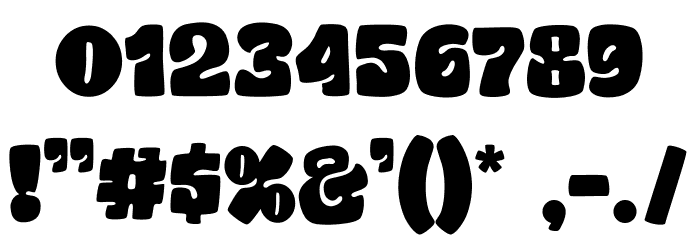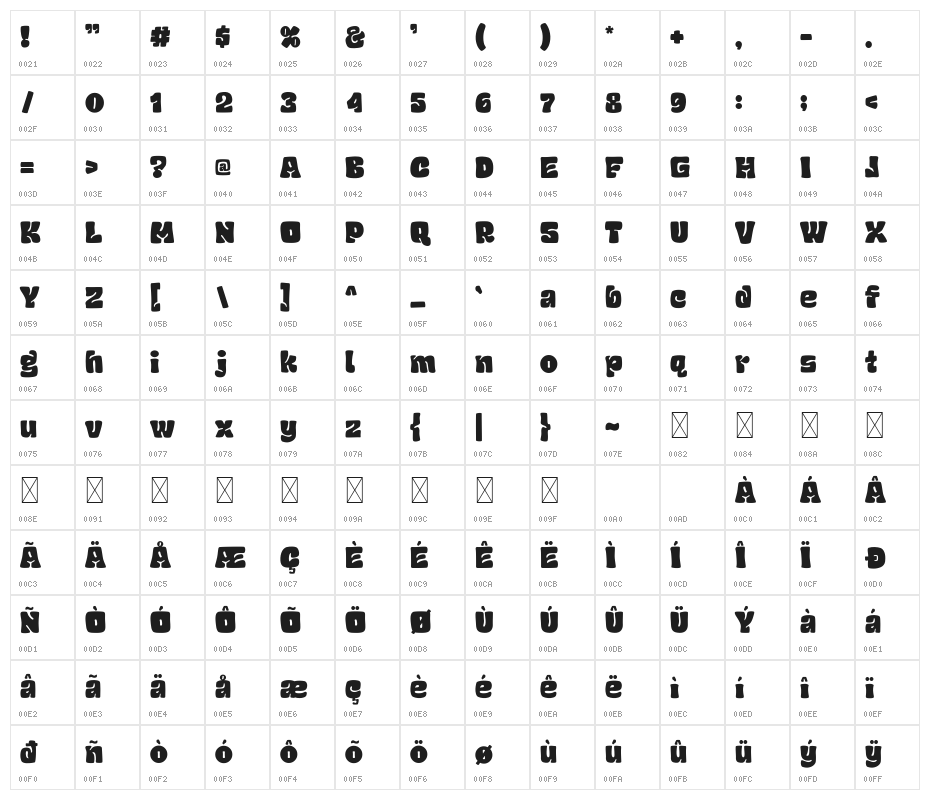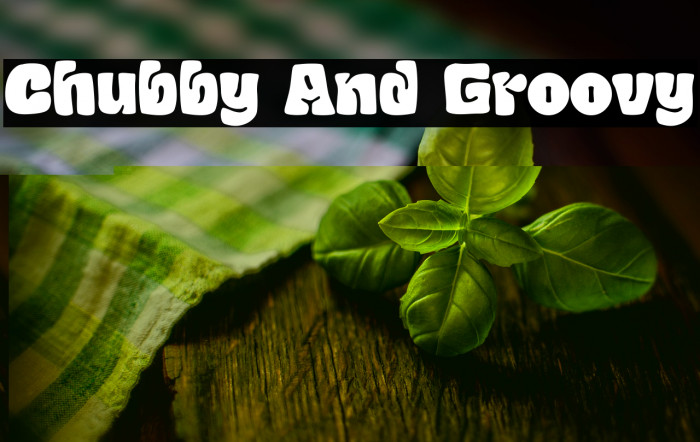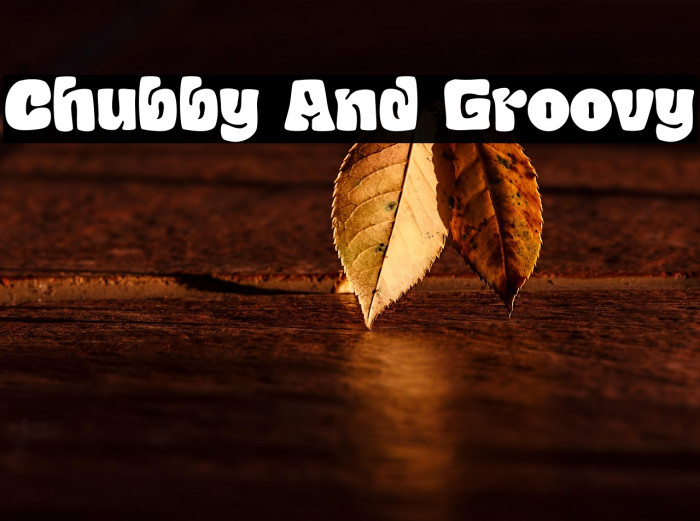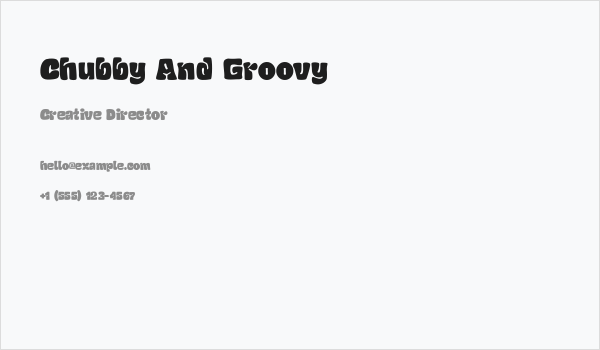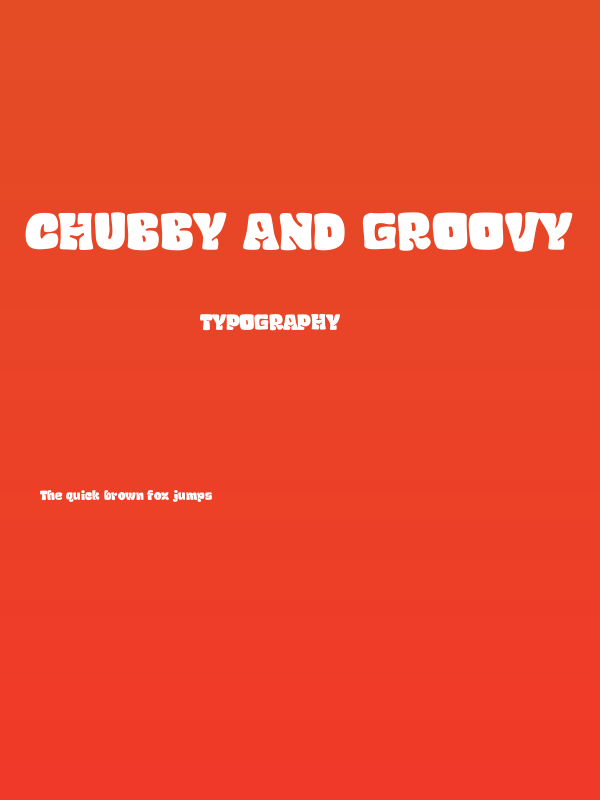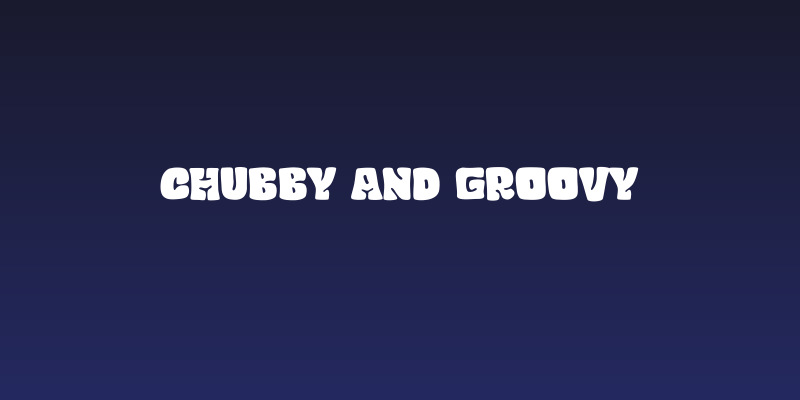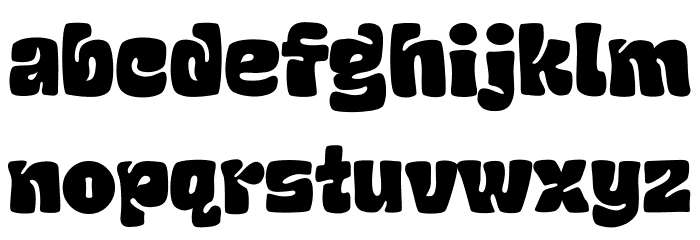
Chubby And Groovy Font
Chubby And Groovy Description
This font exudes a playful and bold character with its thick, rounded strokes and whimsical design. The letters have a bubbly appearance, giving off a retro and groovy vibe reminiscent of the 1970s. Each character is uniquely crafted with a sense of fun and creativity, making it stand out in any design. The font's heavy weight and rounded edges contribute to its friendly and approachable feel, perfect for projects that aim to capture attention and convey a sense of joy and nostalgia.
| Proposed Projects | Ideal for retro-themed posters, children's book covers, playful branding, and event invitations. |